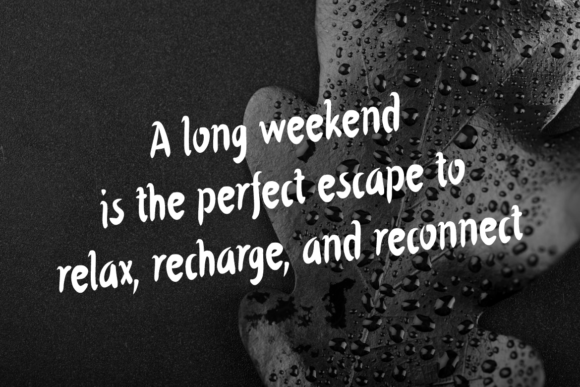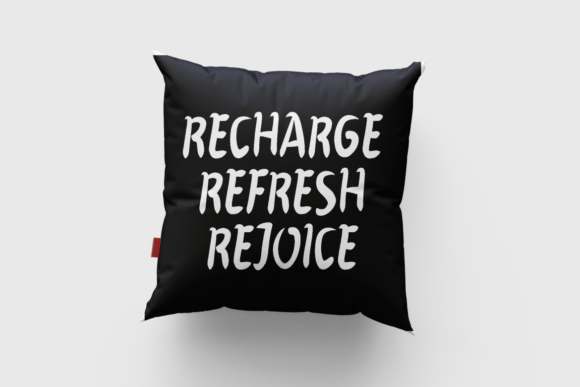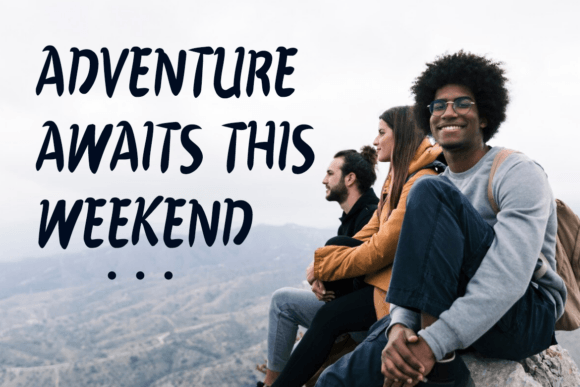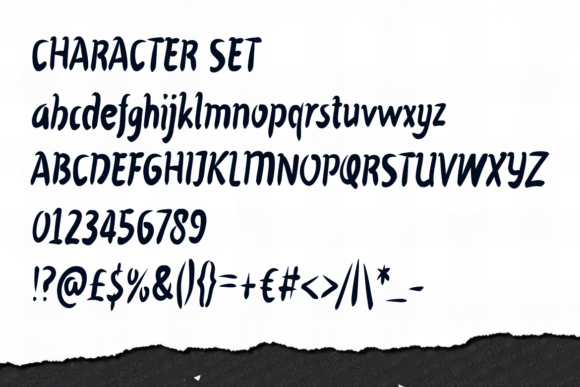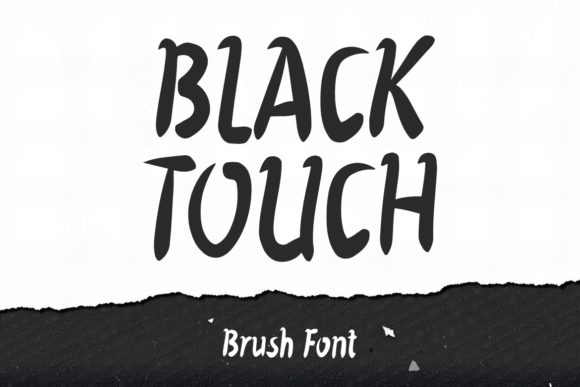
Introducing BlackTouch: The Ultimate Brush Font for Creative Designs
Are you looking for a font that combines urban elegance with artistic scribble? Look no further than BlackTouch, a sophisticated brush font that is sure to elevate your designs to the next level. With its bold, sweeping strokes and meticulous craftsmanship, BlackTouch is the perfect choice for projects that require a touch of luxury and creativity.
The Art of Freestyle Brushwork
BlackTouch is a hand-drawn typeface that captures the essence of freestyle brushwork. Each letter is carefully crafted to convey a sense of movement and depth, giving your designs a dynamic and engaging look. The font’s bold strokes and rough, sketch-like quality give it an authentic, personal touch that is reminiscent of the vibrant street art found in urban landscapes.
Whether you’re designing logos, crafting invitation cards, or creating eye-catching posters, BlackTouch is the perfect choice. Its versatility makes it suitable for a wide range of applications, from branding and packaging to book covers and greeting cards. The font’s elegant yet edgy style is ideal for projects targeting audiences who appreciate both sophistication and a touch of rebellion.
Adding a Unique, Stylish Charm to Your Designs
BlackTouch adds a unique, stylish charm to your designs that ensures your work stands out from the crowd. Its bold, sweeping strokes and rough, sketch-like quality give your designs an authentic, personal touch that is sure to capture the attention of your audience. Whether you’re looking to create a luxurious brand image or a bold, eye-catching poster, BlackTouch is the perfect choice.
Key Features of BlackTouch
- Hand-drawn typeface: Each letter is carefully crafted to convey a sense of movement and depth.
- Bold, sweeping strokes: Capture the essence of freestyle brushwork and add a touch of luxury to your designs.
- Rough, sketch-like quality: Gives your designs an authentic, personal touch that is reminiscent of street art.
- Elegant yet edgy style: Ideal for projects targeting audiences who appreciate both sophistication and a touch of rebellion.
- Versatile: Suitable for a wide range of applications, from branding and packaging to book covers and greeting cards.
Tips for Using BlackTouch in Your Designs
Here are a few tips for using BlackTouch in your designs:
- Use it as a headline font: BlackTouch is perfect for headlines and titles, where its bold, sweeping strokes can really make an impact.
- Pair it with a sans-serif font: For body text, pair BlackTouch with a clean, sans-serif font to create a nice contrast and add visual interest to your design.
- Experiment with colors: BlackTouch looks great in bold, bright colors, but it can also be used in more muted tones to create a sophisticated look.
In conclusion, BlackTouch is a sophisticated brush font that is sure to elevate your designs to the next level. With its bold, sweeping strokes and meticulous craftsmanship, it’s the perfect choice for projects that require a touch of luxury and creativity. Whether you’re a designer, craft, or artist, BlackTouch is a versatile font that can be used in a wide range of applications. So why not give it a try and see how it can add a unique, stylish charm to your designs?